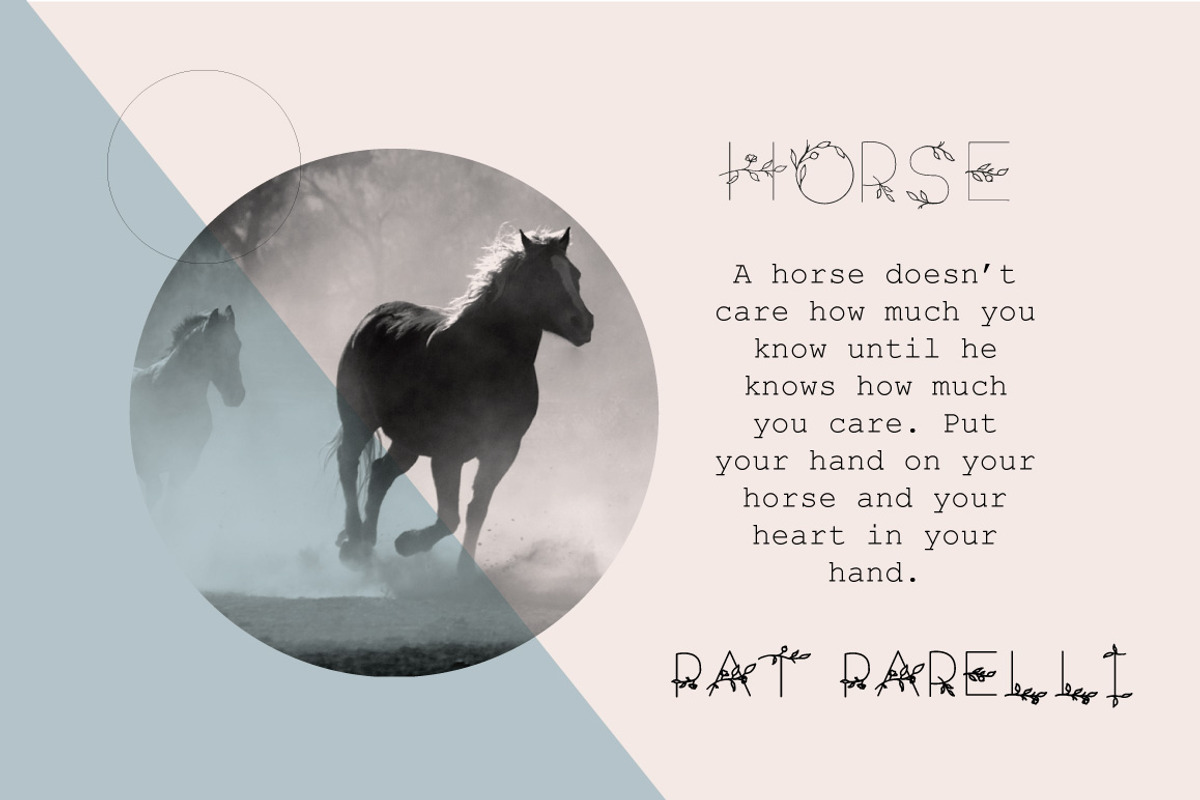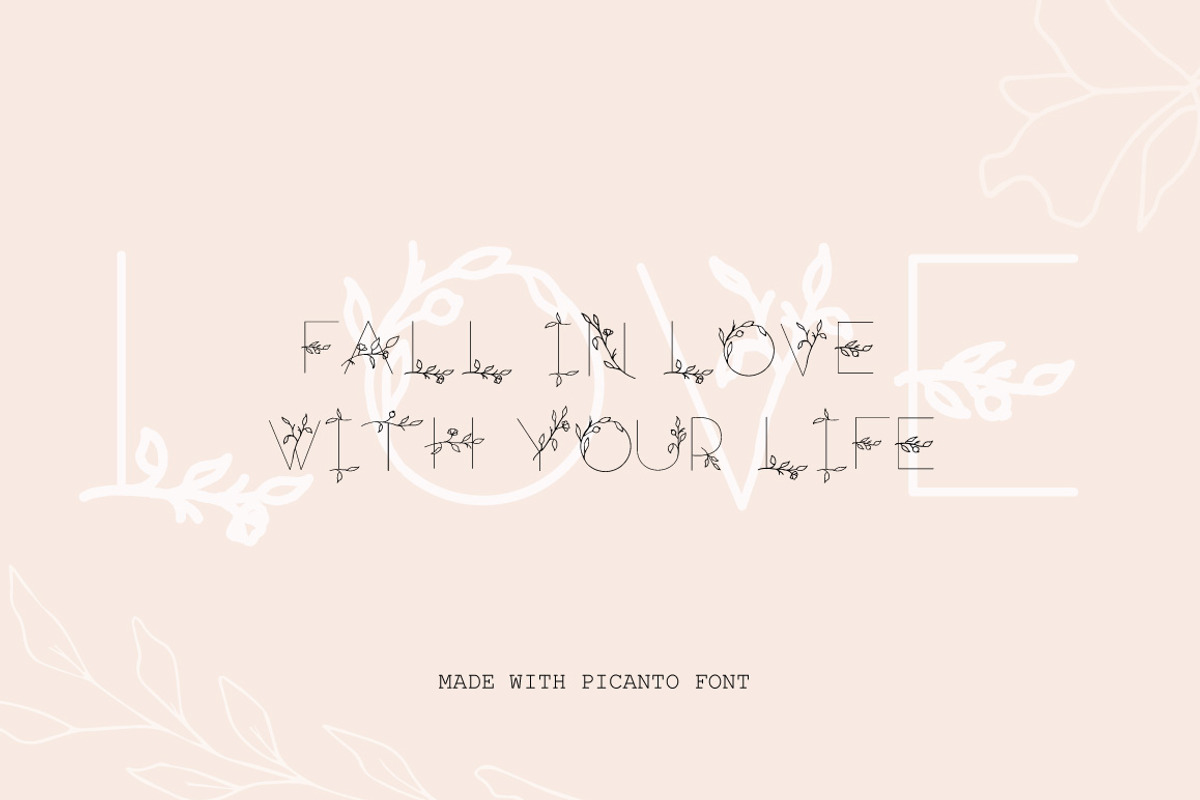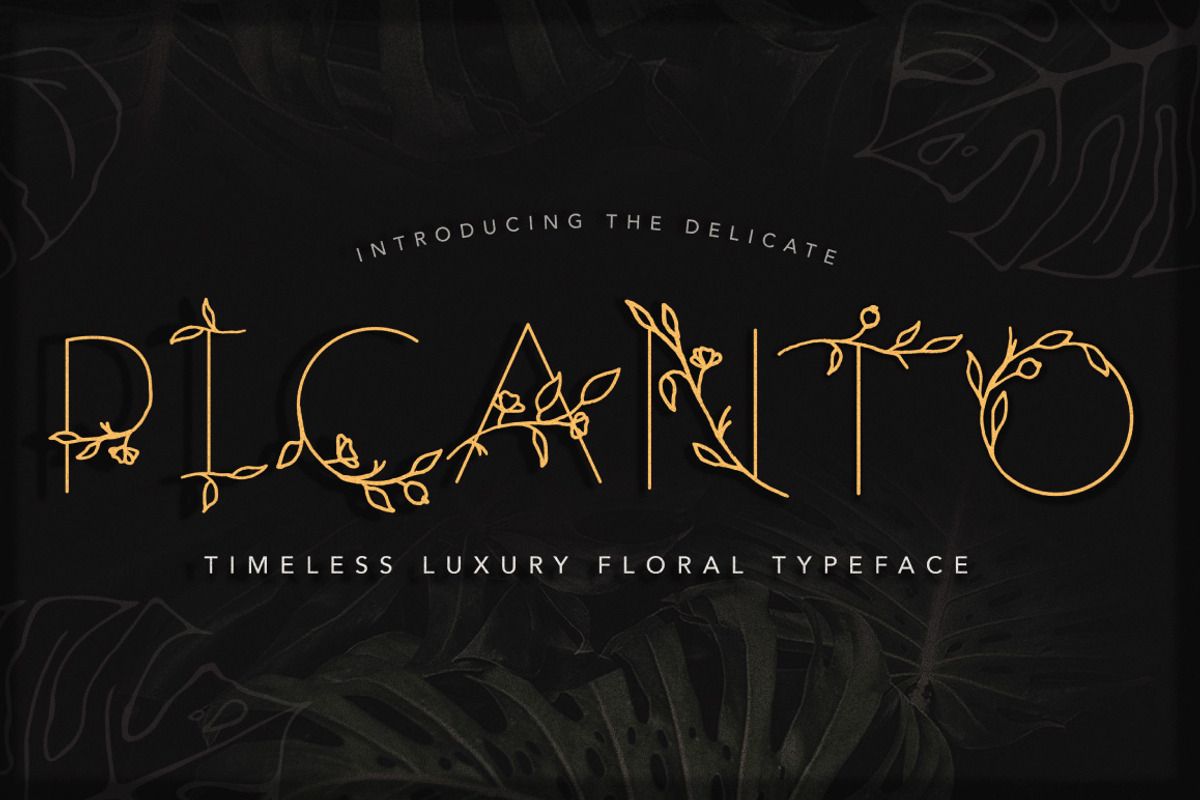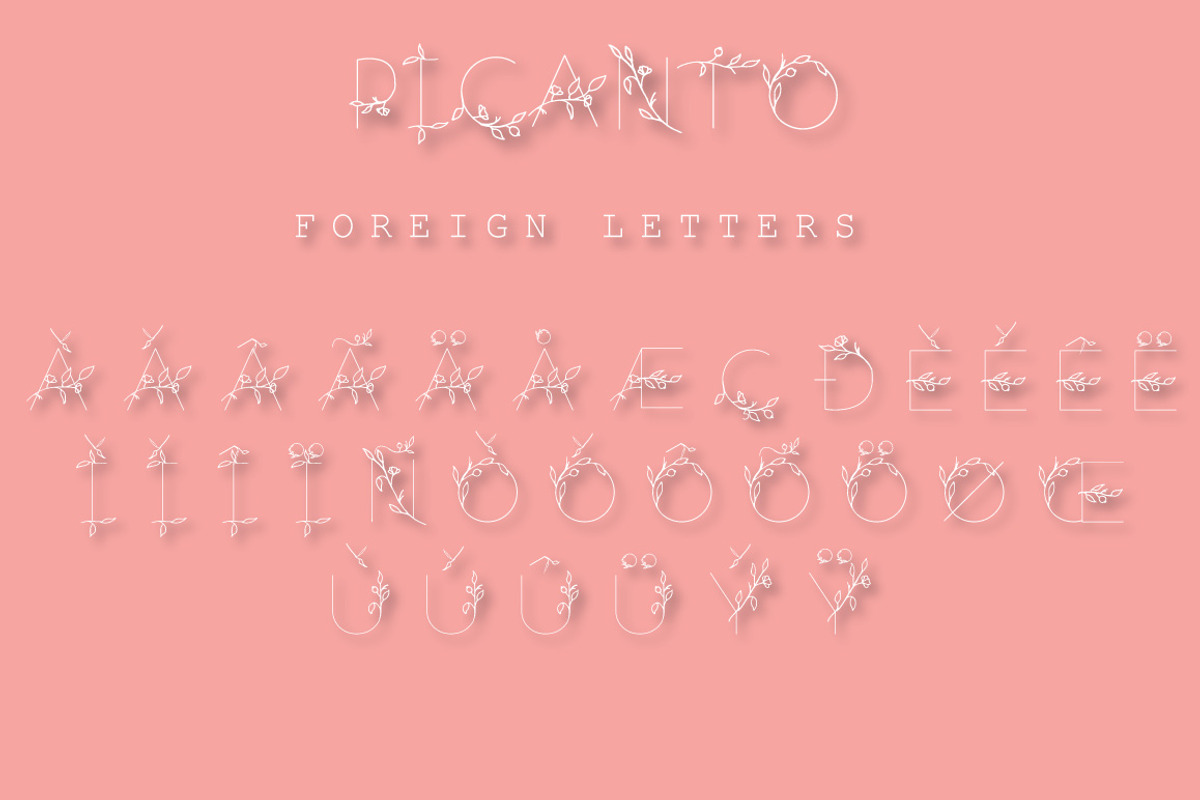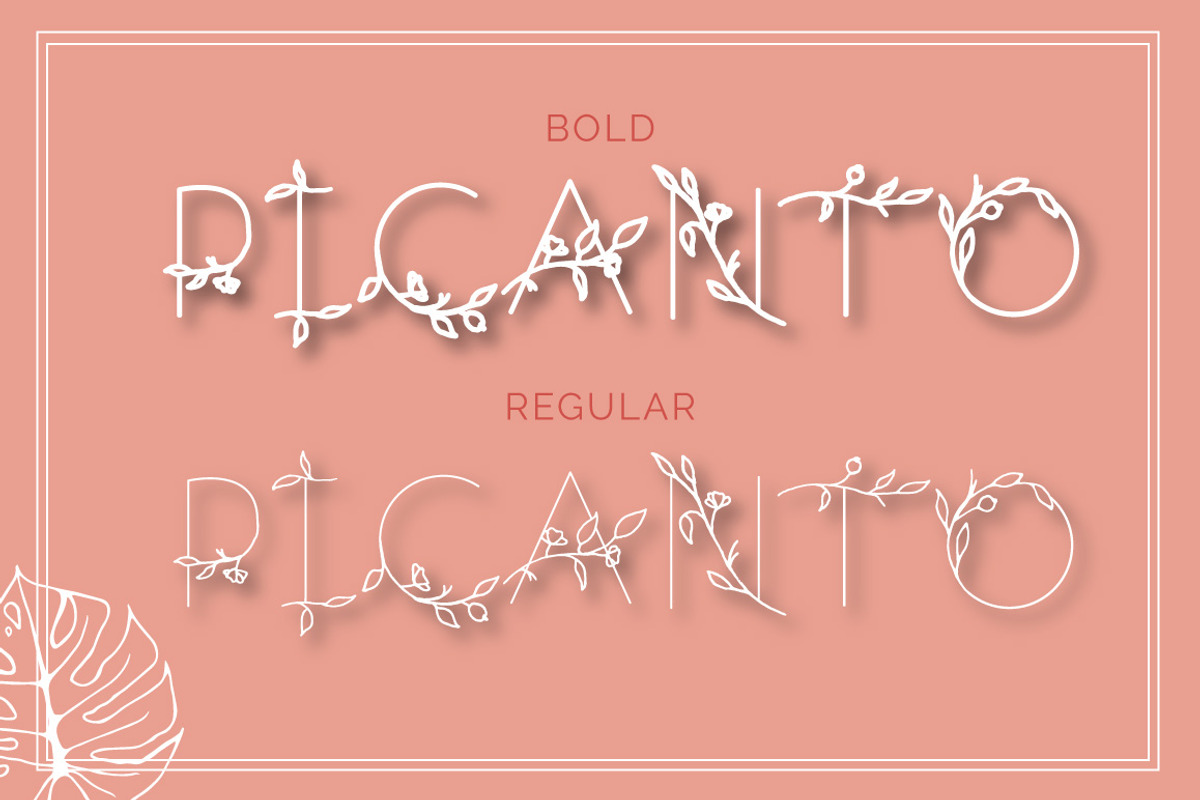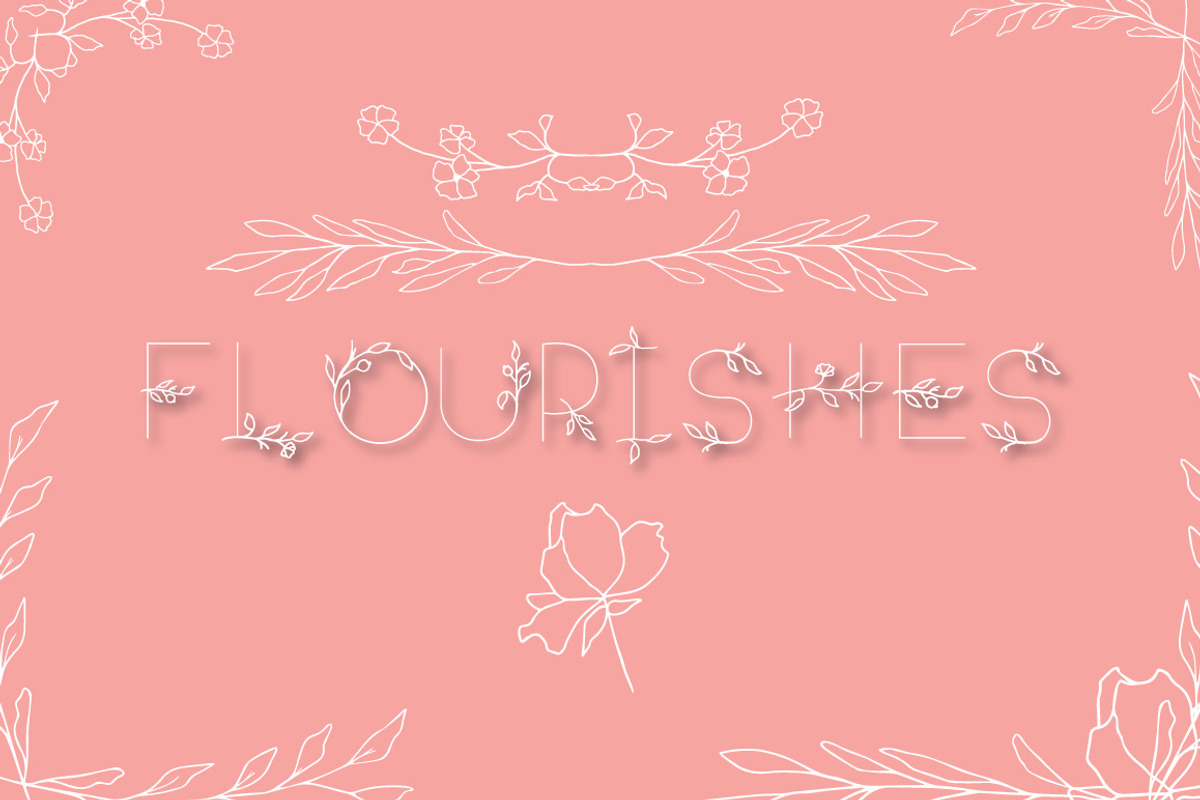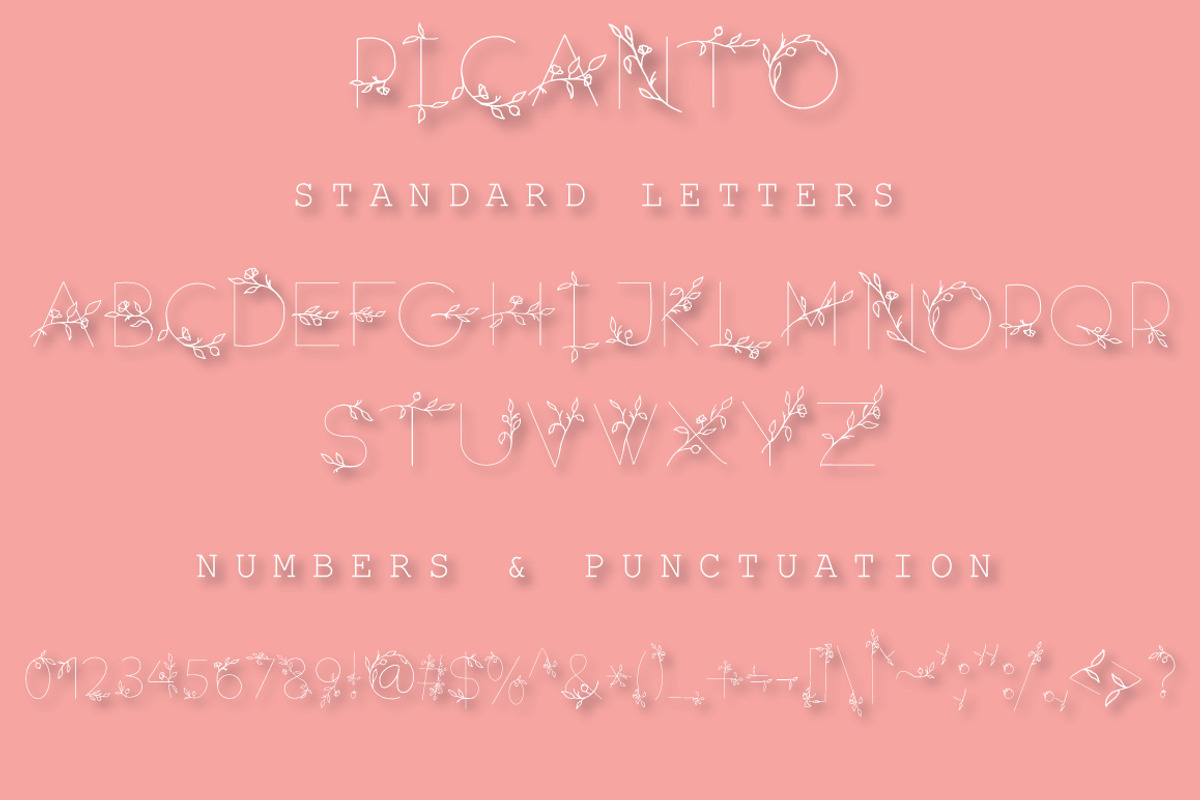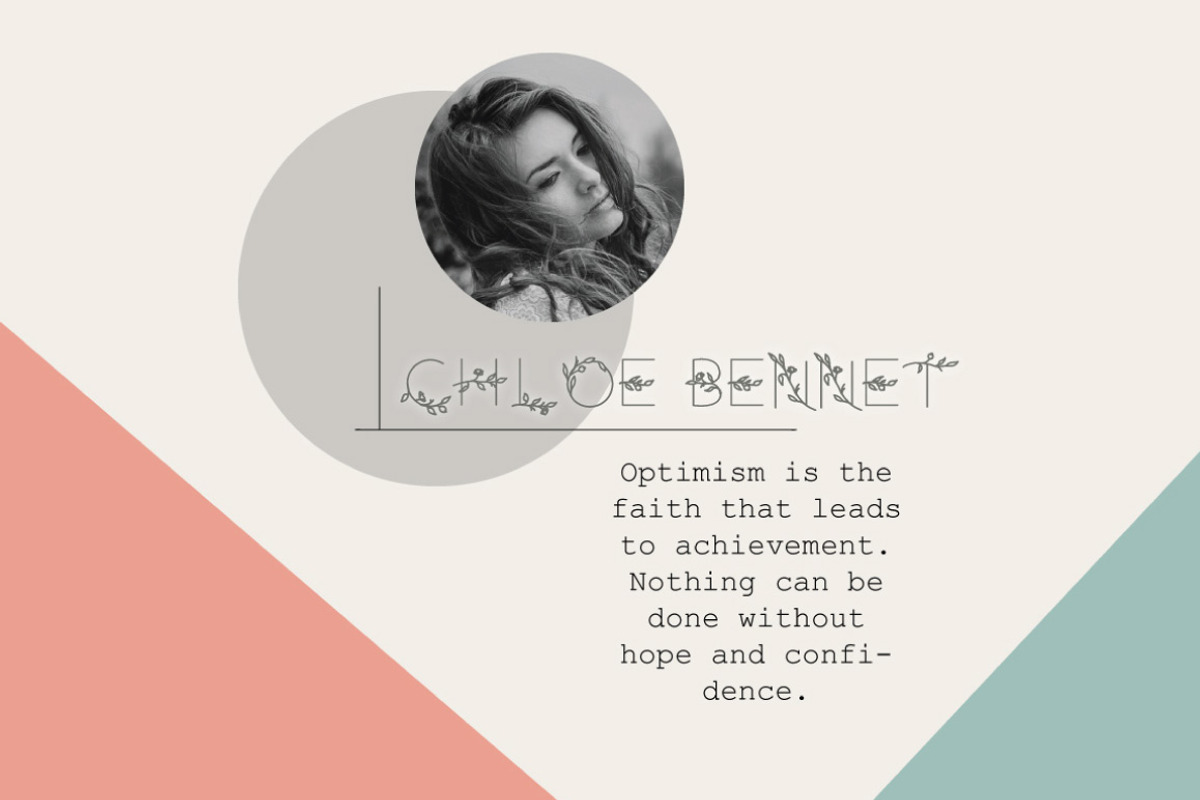
PICANTO Floral Font ( ALL CAPS )
PICANTO or you can say PICANTE in Spanish means hot or spicy, so I suppose it's a play on words based on that ( the word finishes in "o" instead of "e" to make it sound foreign to an English-speaking audience ).
"PICANTO" includes full set of lovely uppercase letters, multilingual symbols, numerals, punctuation. It's perfect for branding, packaging, logo, wedding invitation and much more.
Just use your imagination with it and transform it into something beautiful.
THE BEAUTIFUL EXTRAS :
Picanto also comes with some beautiful extras for you to use with.